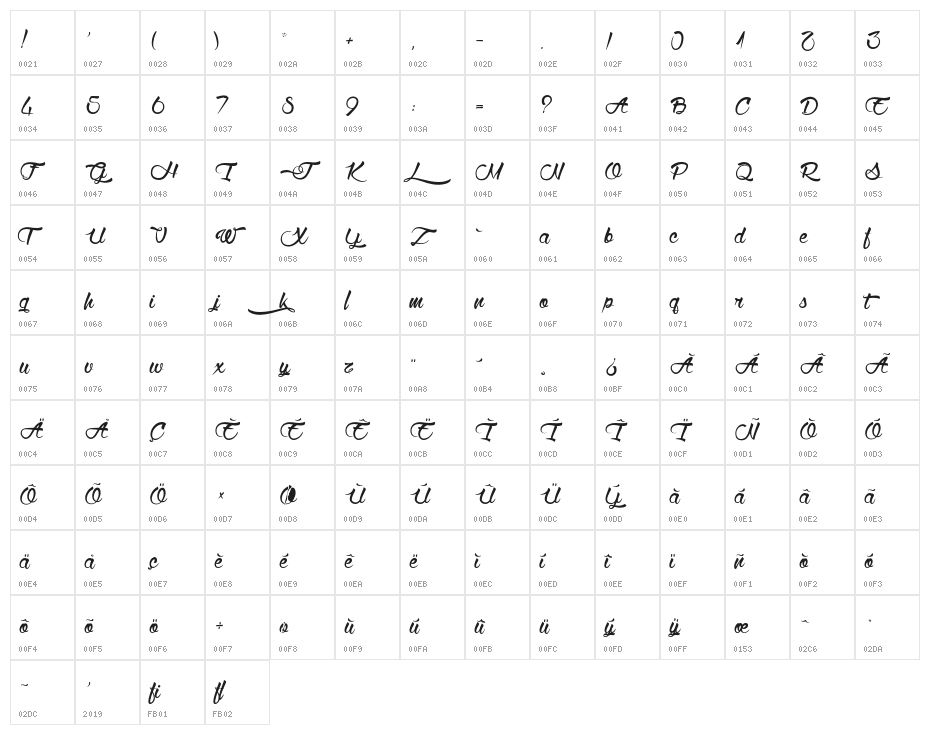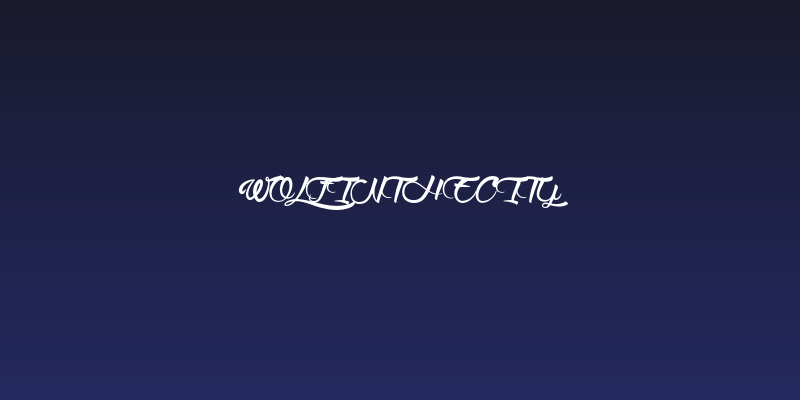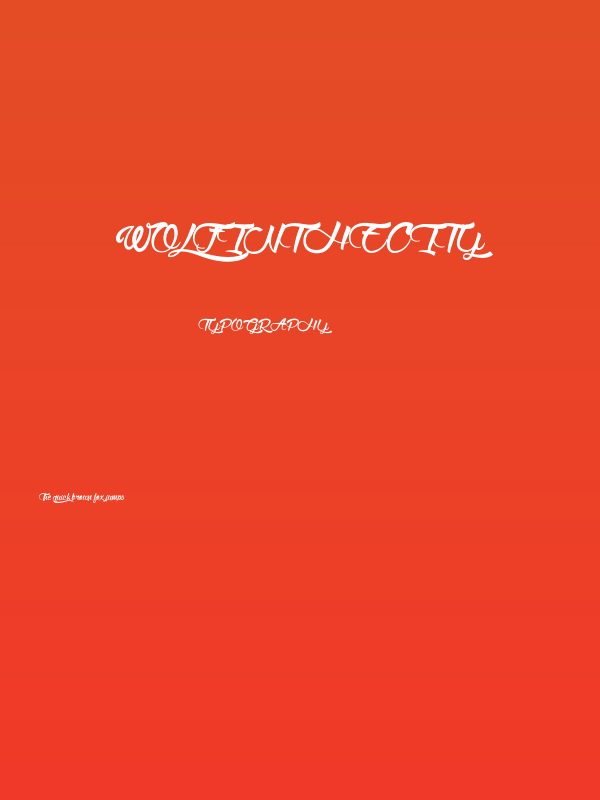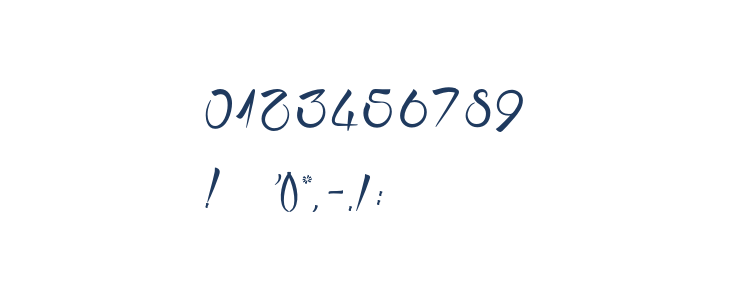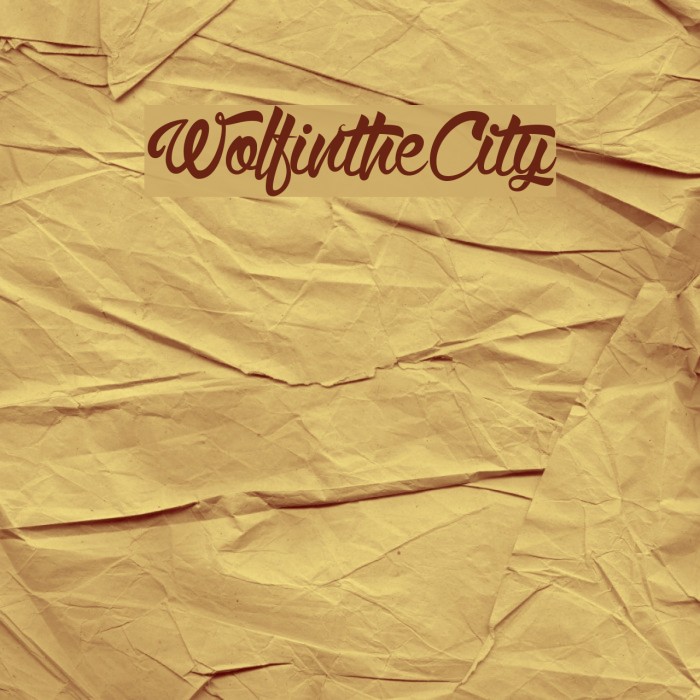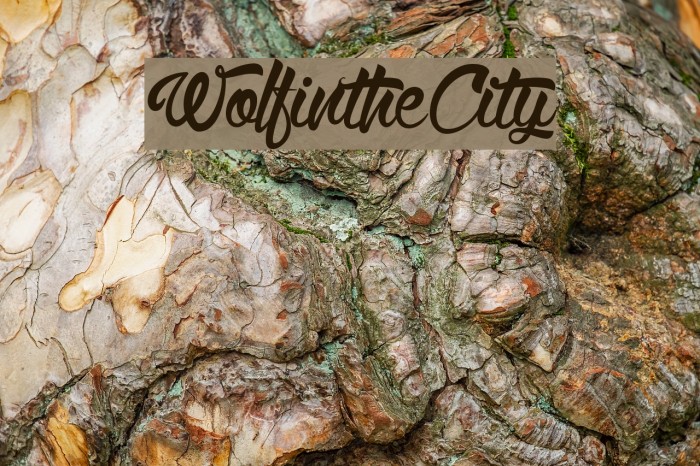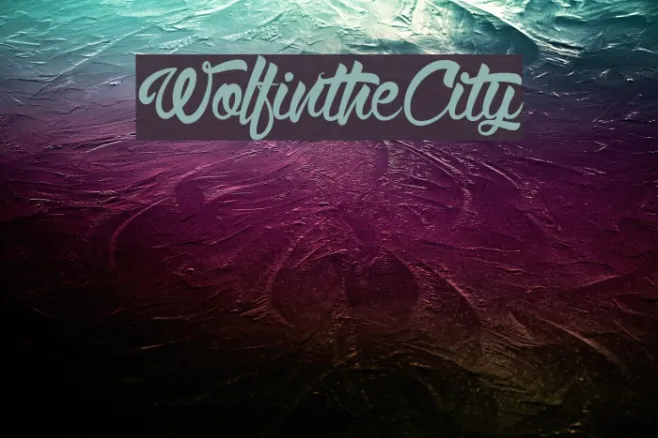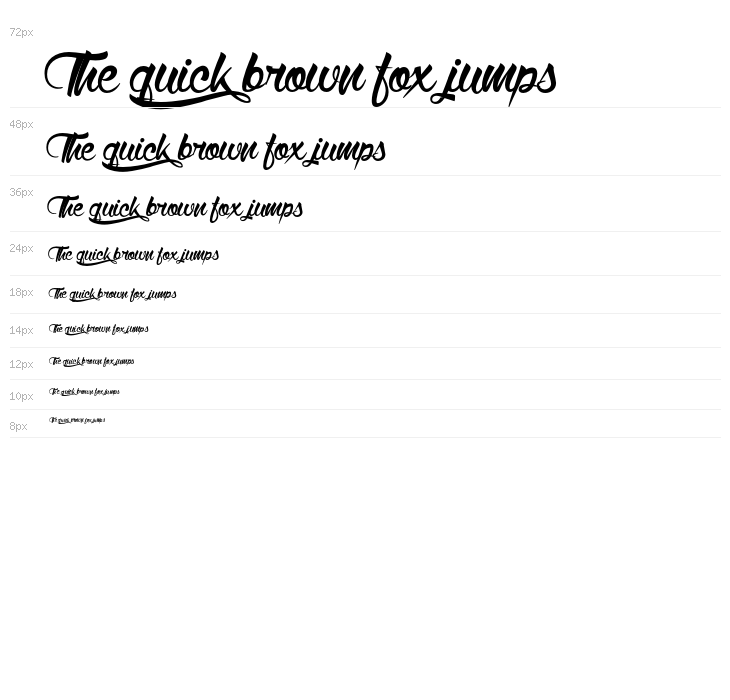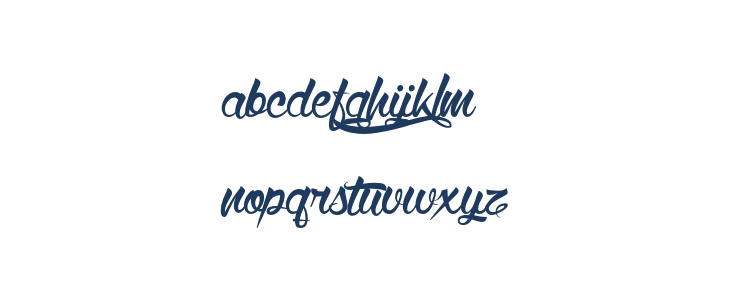
WolfintheCity Font
WolfintheCity Description
This font features a dynamic and elegant script style, characterized by its flowing, cursive letterforms. The uppercase letters are ornate, with sweeping curves and flourishes that give a sense of movement and sophistication. The lowercase letters maintain a consistent style, with smooth connections between characters, enhancing readability while retaining an artistic flair. The numerals are distinct and complement the overall aesthetic, offering a balance between decorative and functional. Special characters are thoughtfully designed, maintaining the font's cohesive look. This font is ideal for projects that require a touch of elegance and creativity.
| Overall Style | Elegant, Artistic |
| Proposed Projects | Ideal for wedding invitations, elegant branding, greeting cards, and artistic posters. |